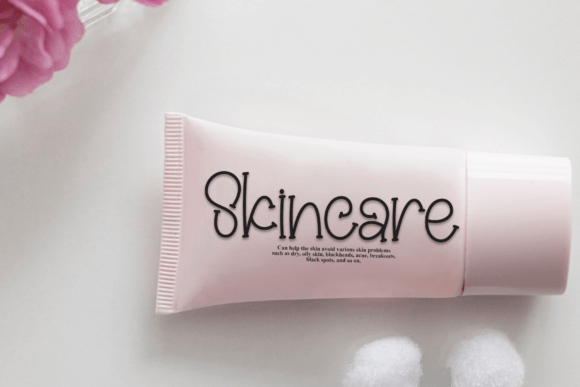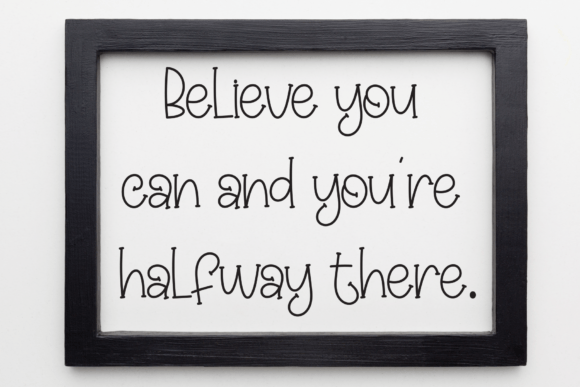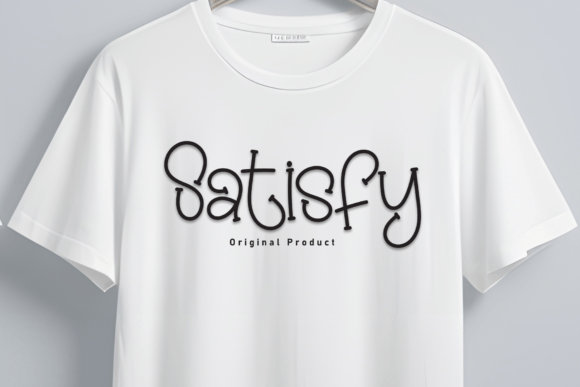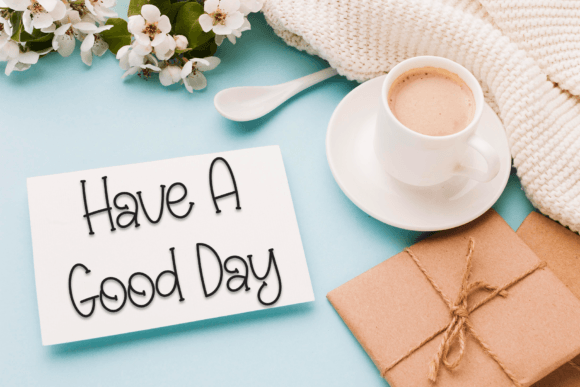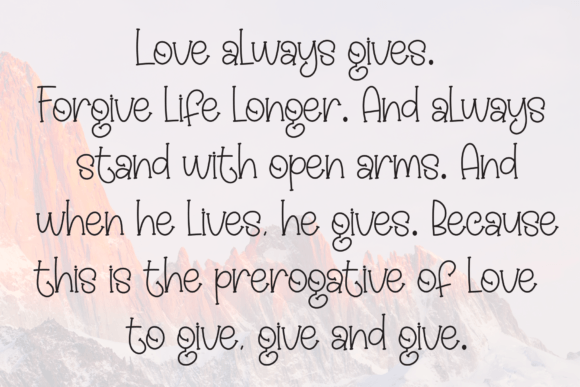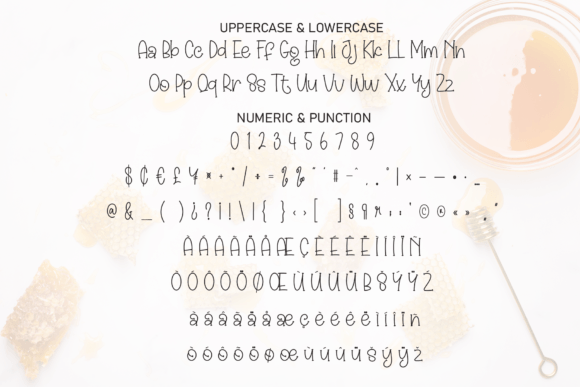
The Sweetest Addition to Your Designs: Candy Honey Font
Remember the thrill of rummaging through your grandmother’s old craft box, discovering a stash of colorful markers and stickers that sparked your creativity? It’s moments like these that inspire us to bring a touch of whimsy and playfulness to our designs. For designers seeking to add a dash of personality to their projects, a font that embodies this carefree spirit is just what you need.
Enter the Candy Honey Font, a delightful handwritten font that embodies the warmth and friendliness of a sunny day. With its soft curves and casual letters, this font is perfect for creating invitations, greeting cards, and other designs that require a sweet and inviting vibe. Whether you’re a seasoned pro or just starting out, the Candy Honey Font is an invaluable addition to your design toolkit, sure to bring a smile to your clients’ faces and make your projects stand out from the crowd.
Candy Honey Font Key Features
- Font Size: The font comes in multiple sizes, ranging from 8pt to 144pt, making it suitable for various design applications.
- Resolution: The font is designed for high-resolution displays, ensuring crisp and clear rendering on screens.
- Unique Characteristics: The Candy Honey Font features a distinctive, hand-drawn style with intricate details and a touch of whimsy, making it perfect for adding a playful touch to designs.
- Character Set: The font includes a comprehensive character set, including Latin, Cyrillic, and Greek alphabets, as well as punctuation marks and symbols.
Candy Honey Font Review
Overall, I have mixed feelings about the Candy Honey Font. While it has some great features, it also has some limitations that might make it less appealing to some users.
- The font is playful and fun, perfect for creating a whimsical and youthful vibe.
- It has a wide range of characters, including emojis and special symbols, which makes it great for creative projects.
- The font is highly customizable, with options for color, size, and style, making it easy to adapt to different design needs.
Limitsations ⚠️
- The font can be quite distracting, especially when used in large quantities. It’s best suited for smaller text or accent text.
- The font’s bold weight can be a bit too playful and may not be suitable for serious or formal projects.
- The font doesn’t support a wide range of languages, which might limit its use for multilingual projects.
Overall, I think the Candy Honey Font is a great option for creative projects that require a playful and fun vibe. However, it may not be the best choice for serious or formal projects. With some careful use and customization, it can be a valuable addition to any designer’s toolkit.
To get the most out of the Candy Honey Font, use it for:
- Designing children’s products or packaging.
- Creating playful and whimsical branding materials.
- Adding a touch of sweetness to your digital designs.
The Candy Honey Font is perfect for:
- Birthday party invitations and decorations.
- Children’s book illustrations and design.
Alternatives to Candy Honey Font
The Candy Honey Font is a modern, elegant font used for various design purposes. However, there are other alternatives available that designers can consider for their projects. Here are a few options:
The Great Vibes Font is a beautiful, handwritten font that is perfect for creating a friendly and approachable atmosphere. It is ideal for use in logos, headings, and body text where a casual, yet elegant feel is desired. Compared to the Candy Honey Font, Great Vibes has a more relaxed and organic feel, making it suitable for a wider range of design applications.
The Carolyna Pro Font is a sophisticated, modern script font that is ideal for use in high-end branding, packaging, and advertising projects. It has a more refined and polished feel compared to the Candy Honey Font, making it suitable for projects that require a touch of luxury and elegance. However, Carolyna Pro is more formal and less playful than Candy Honey, making it less suitable for casual designs.
Q: Are there any font customization options available for Candy Honey Font?
No, the Candy Honey Font is a pre-designed font, and no customization options are available. However, you can use font editing software, such as FontForge or FontLab, to modify the font if you have the necessary expertise and technical skills.